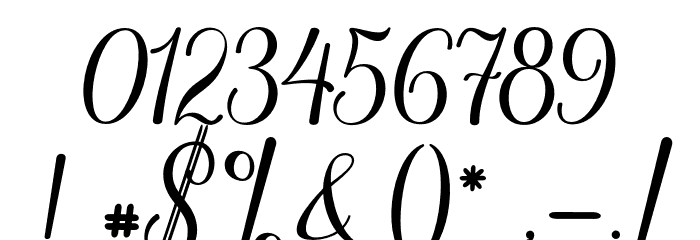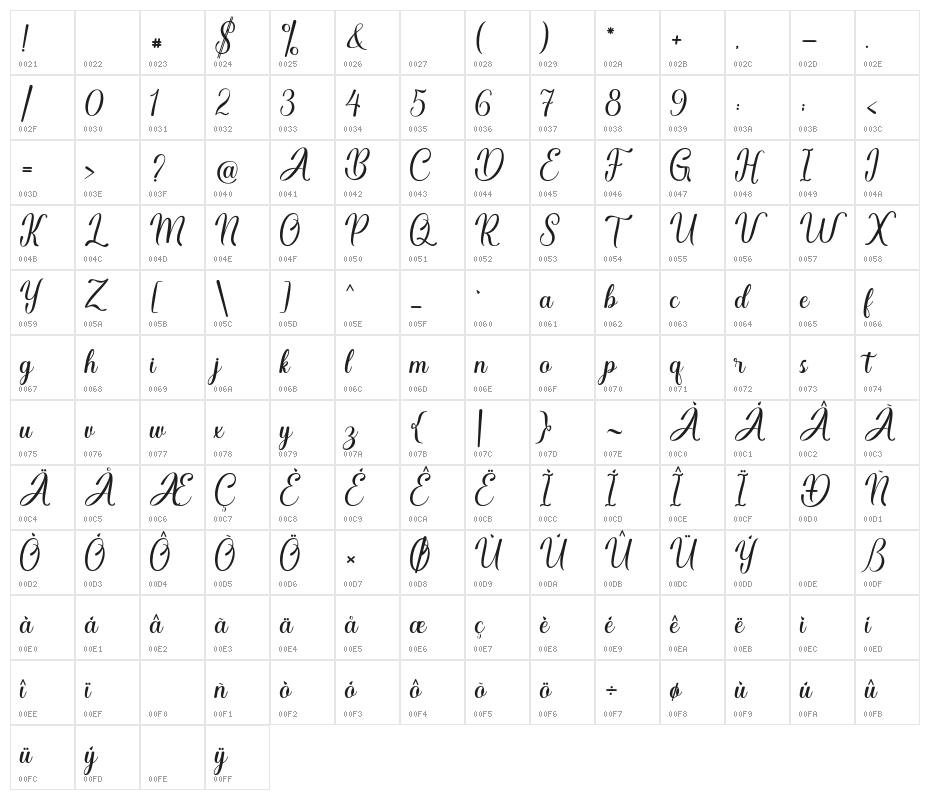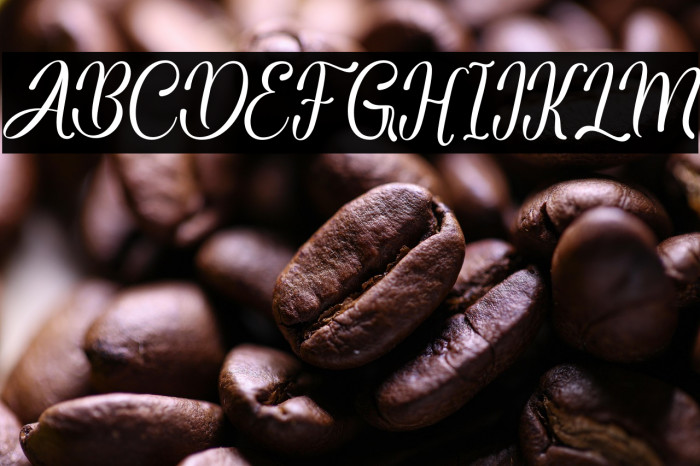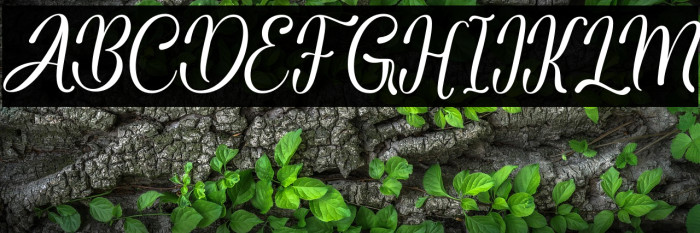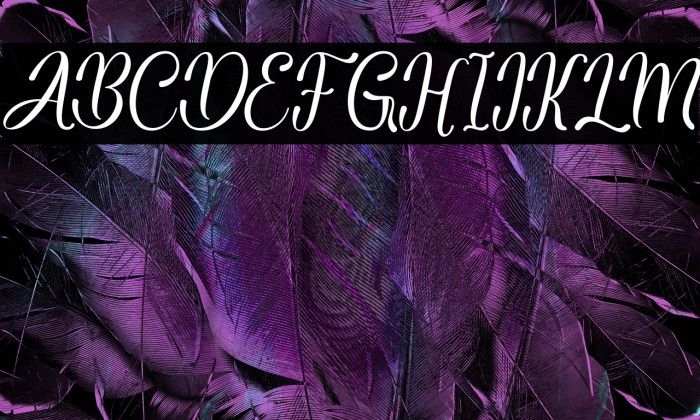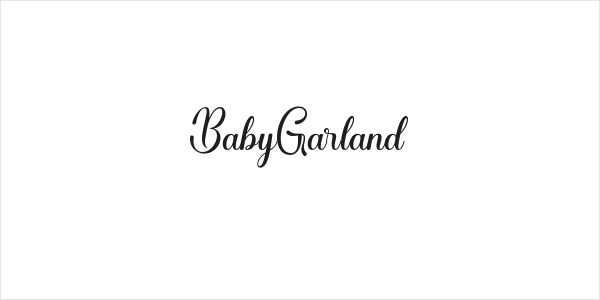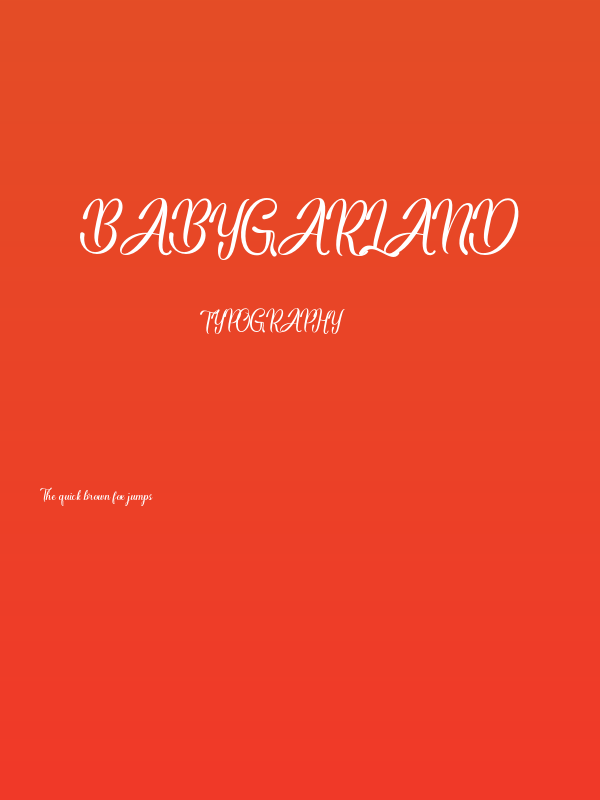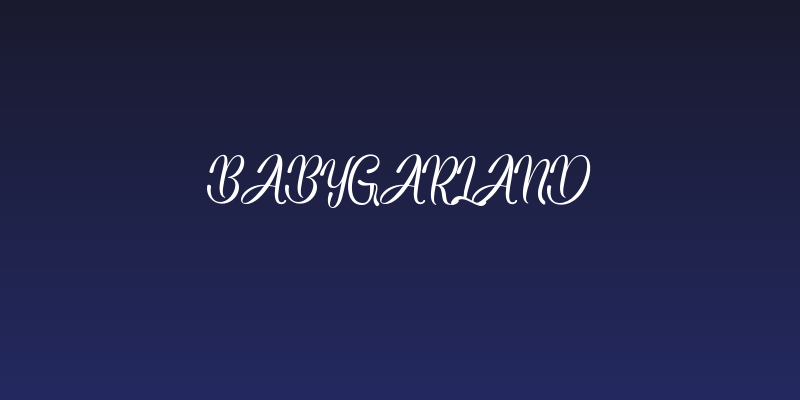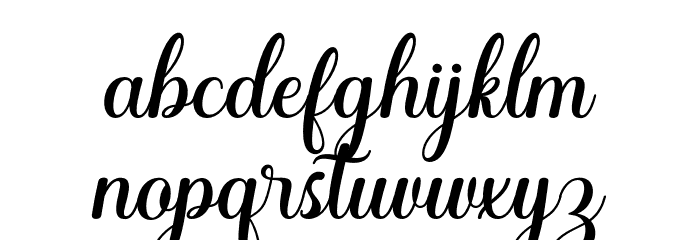
BabyGarland Font
BabyGarland Description
This font exudes a playful and elegant script style, characterized by its flowing, cursive letterforms. The uppercase letters are bold and sweeping, with graceful loops and curves that give a sense of movement and fluidity. The lowercase letters maintain a consistent style, with a slightly more compact form that complements the uppercase. Numbers are designed with a similar flair, ensuring they blend seamlessly with the alphabet. Special characters are crafted with the same attention to detail, enhancing the font's overall cohesive look. The strokes are moderately thick, providing a medium contrast that adds to the font's readability while maintaining its decorative appeal.